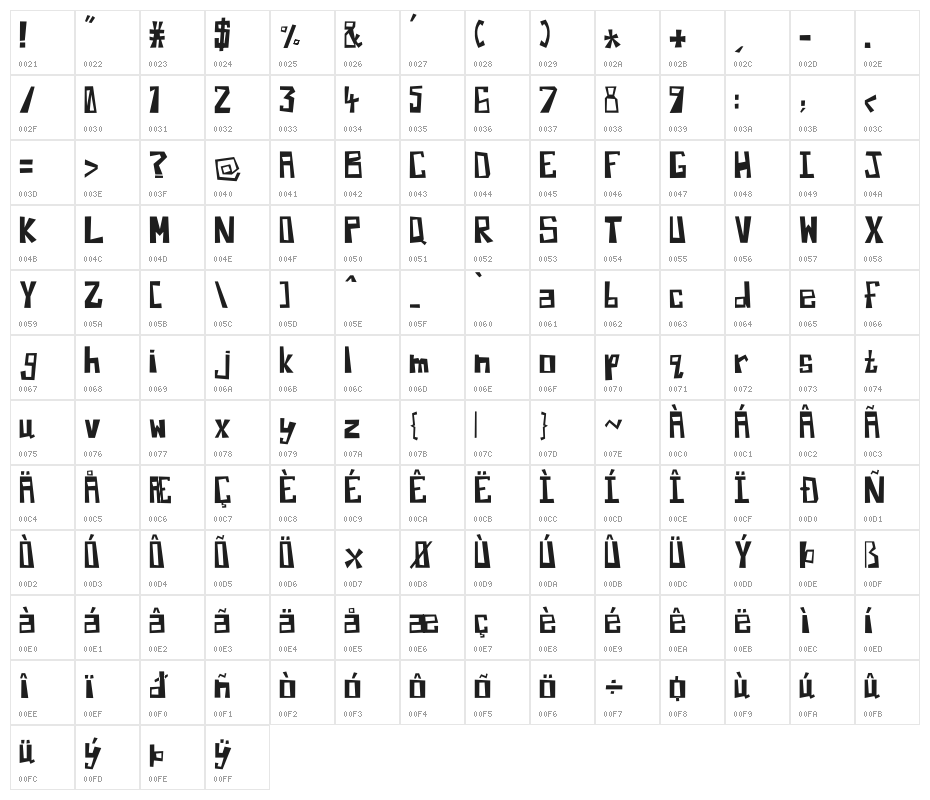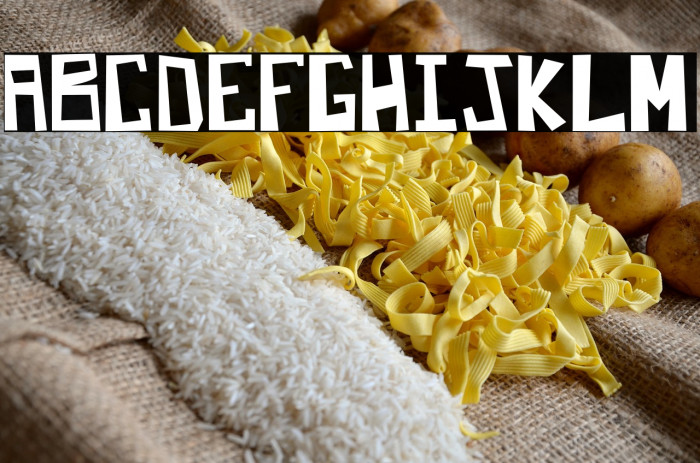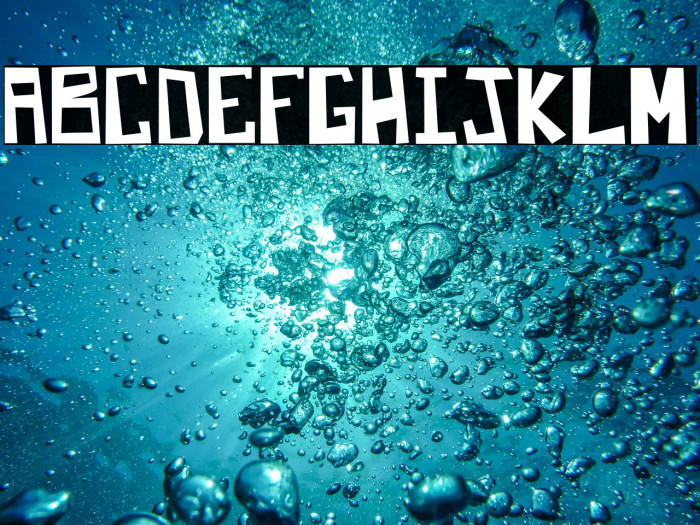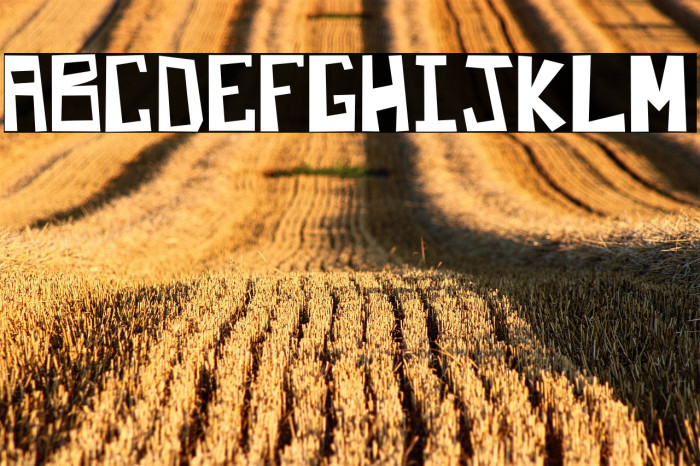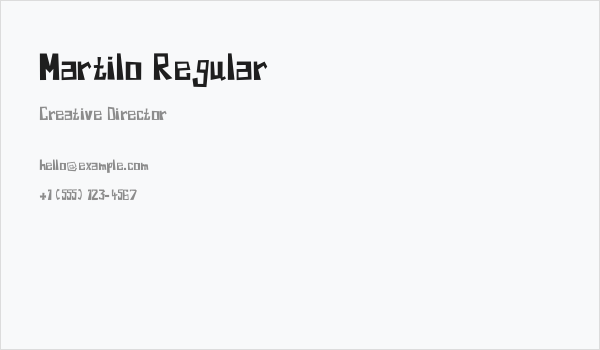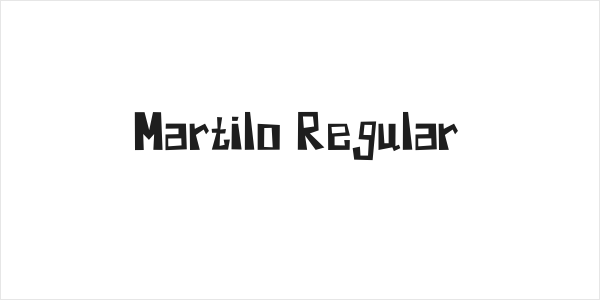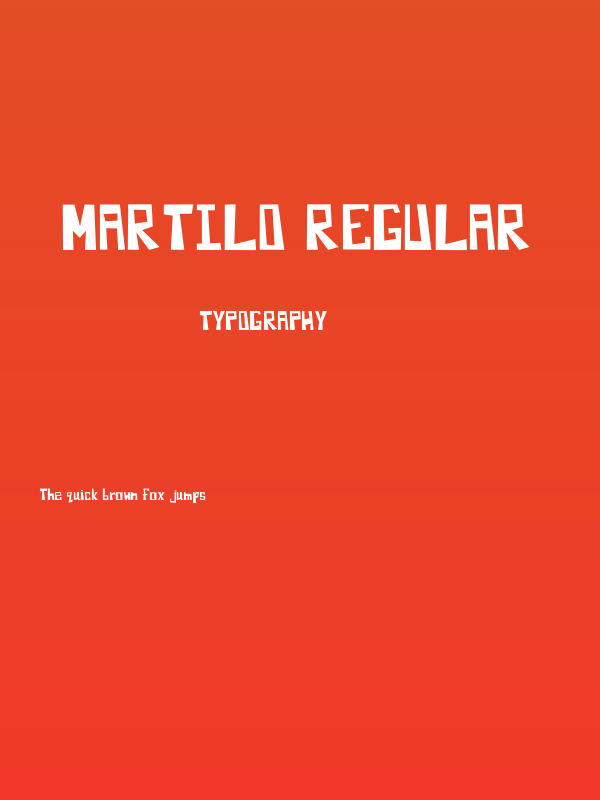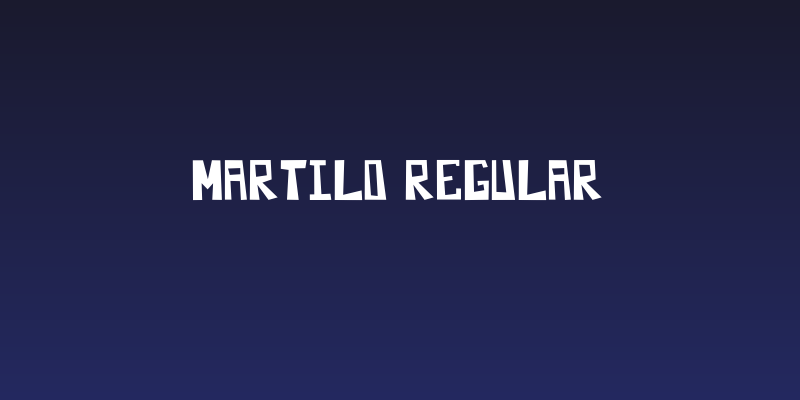
Martilo Regular Font
Martilo Regular Description
This font features a bold and angular design with a distinctly geometric and edgy appearance. The characters are crafted with sharp angles and irregular shapes, giving it a dynamic and energetic feel. The uppercase and lowercase letters maintain a consistent style, with a playful yet assertive presence. The numbers and special characters follow the same bold and angular theme, ensuring uniformity across the font. This font's unique style makes it stand out, making it ideal for eye-catching designs.
| Proposed Projects | Perfect for posters, album covers, branding, and any project that requires a bold and dynamic visual impact. |